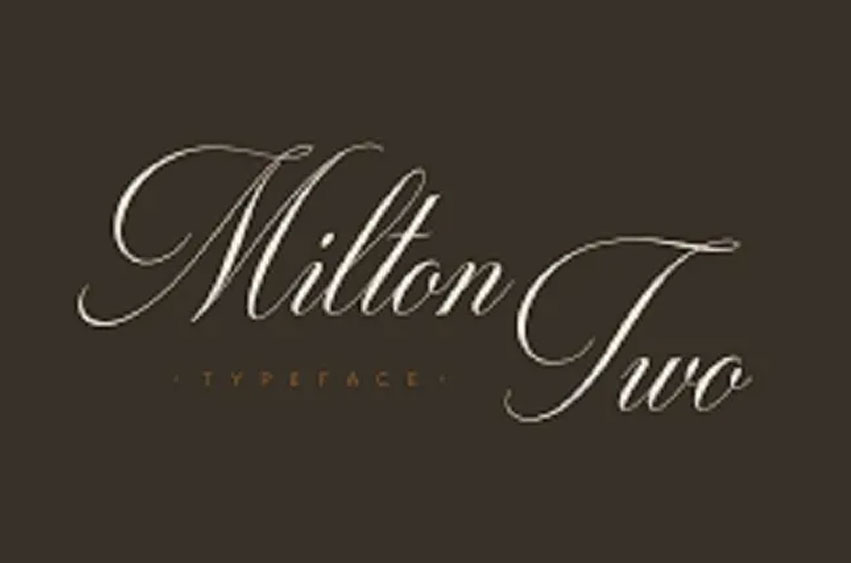
Milton Two Font
Milton Two Font is suitable for flyers, posters, novels, letterheads, or any design requirements you want to be awesome.
It will certainly amaze your readers.